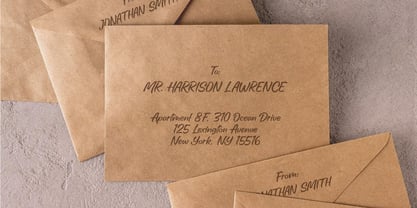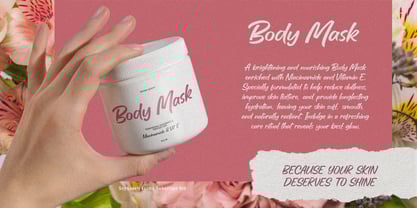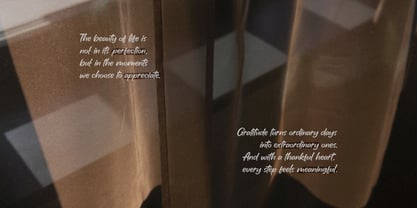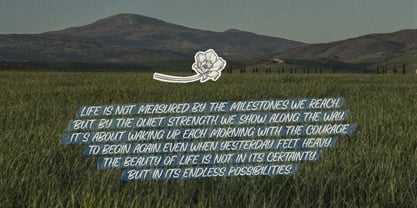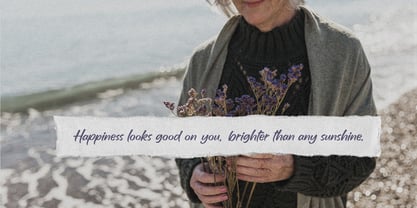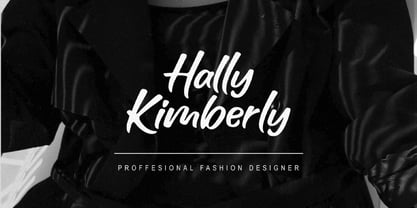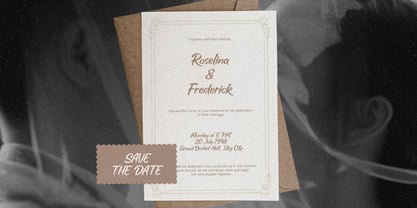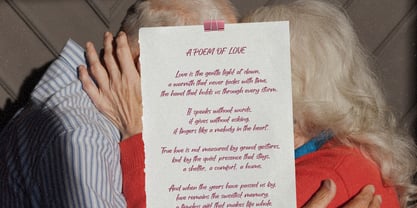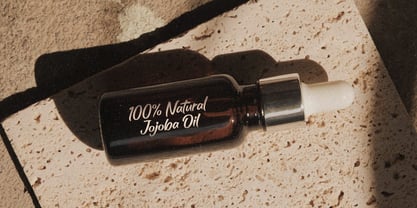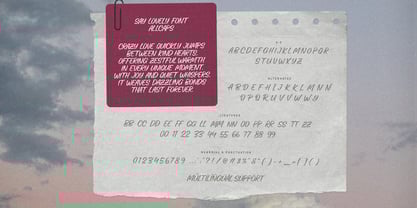
Say Lovely Full Caps
by Subectype
The Say Lovely Full Caps Font Family was designed by Rangga Subekti and published by Subectype. Say Lovely Full Caps contains 2 styles and family package options.
"Introducing Say lovely - Duo font styles" a bold script font that brings the charm of handwritten letters to life. Its casual strokes and playful curves create a fun, approachable vibe, perfect for projects that need a touch of warmth and personality. Lovely and expressive, it’s ideal for logos, quotes, invitations, or anything that deserves a cheerful handwritten look."